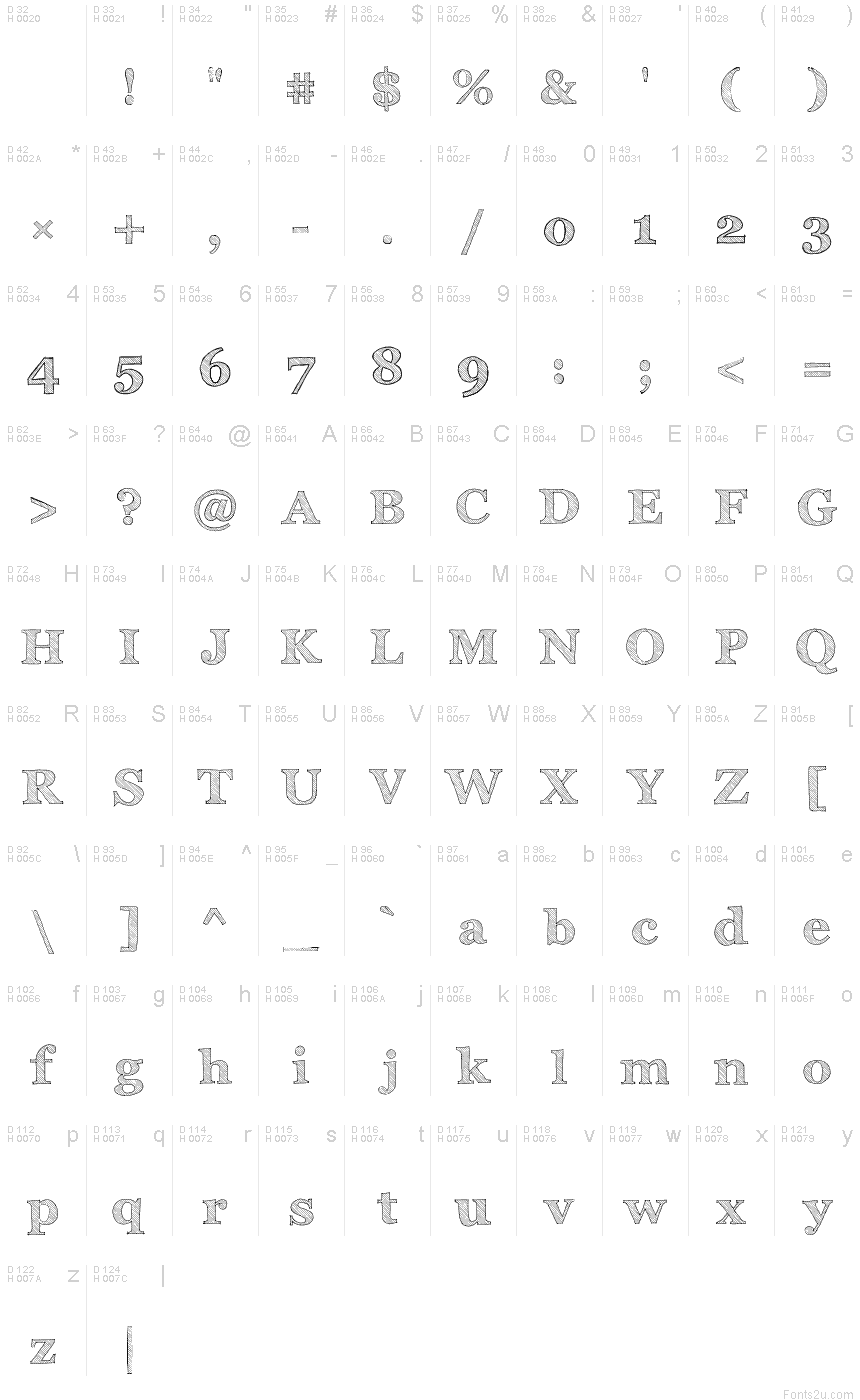
Archistico by Archistico and Emilie Rollandin is a free eroded display serif with broad slab forms and a hand-etched finish. Diagonal hatching fills the letters, and uneven edges recall an old print pulled from a worn plate. The serifs are sturdy and emphatic.
As an engraved title, it suits posters, book covers, and heritage packaging, with texture built into the lettering. Its mix of formal proportions and rough linework is especially apt for independent publishers and artisan food brands.